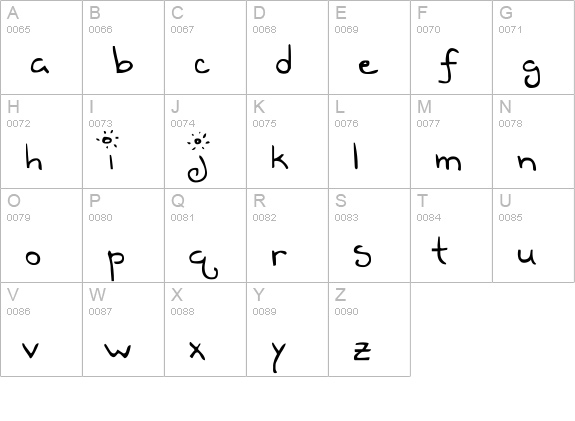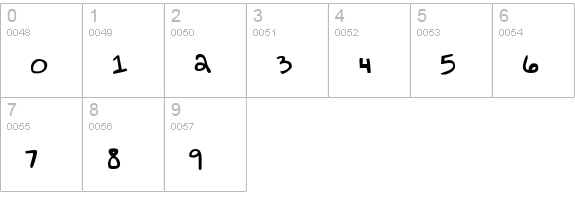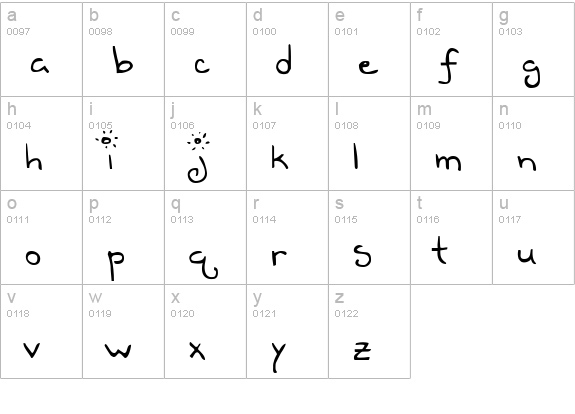
Introducing the captivating and effortlessly stylish Teen Dreem Magazeen font, a perfect choice for those seeking a touch of youthful charm and trendy sophistication in their designs. This font boasts a unique blend of sleek lines and playful curves, making it a versatile choice for a wide range of creative projects. With its modern and vibrant appeal, Teen Dreem Magazeen font adds a touch of whimsy and energy to any design, making it ideal for fashion magazines, editorial layouts, social media graphics, and more. Its clean and legible letterforms ensure readability, while its subtle details and artistic flair elevate it to new heights of visual appeal. But what truly sets the Teen Dreem Magazeen font apart is its availability – it is absolutely free to download at FontsMarket.com. Yes, you read that right! This font offers the perfect combination of high-quality design and accessibility, allowing designers of all backgrounds and budgets to enjoy its captivating beauty without any limitations. Whether you're a seasoned graphic designer or a budding creative enthusiast, Teen Dreem Magazeen font is the perfect addition to your font collection. Its versatility, modernity, and the fact that it is freely available for download make it a must-have for anyone looking to add a touch of youthful exuberance and stylish elegance to their designs. So, don't miss out on the opportunity to enhance your creative projects with the mesmerizing Teen Dreem Magazeen font. Download it for free today at FontsMarket.com and experience the joy of effortless style and limitless creativity.